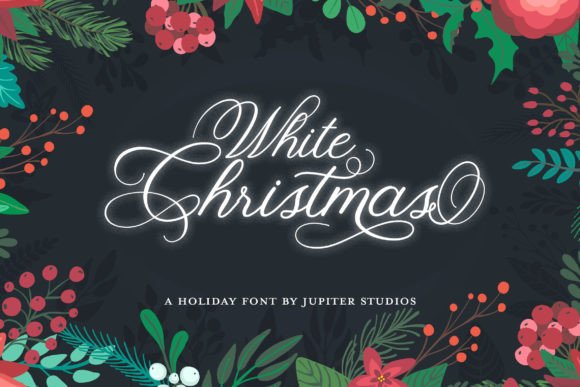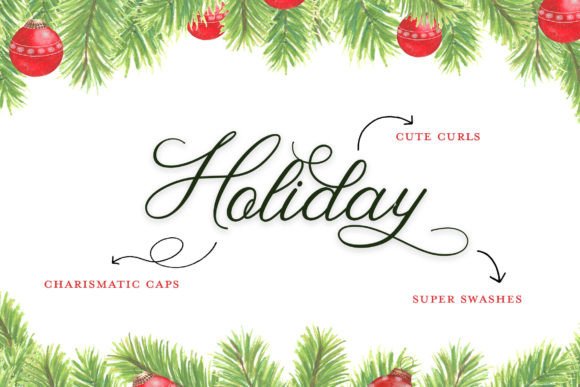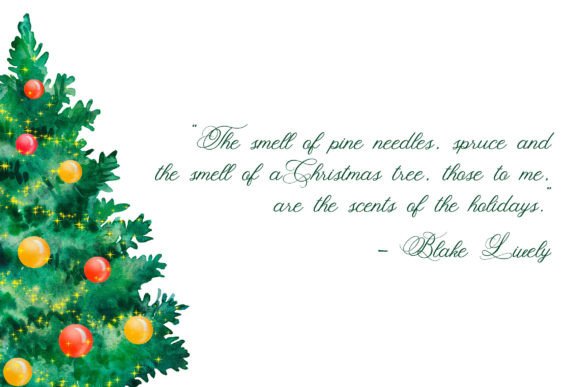
A cute, swirly, and swashy holiday font with tons of extra characters and oodles of style.
Fun for adding a little flair to your Holiday cards or adding a little extra something to your handmade signs and helping you celebrate Christmas in a truly magical way! This font is PUA encoded, which means you can access all of the glyphs and swashes with ease!
White Christmas Font